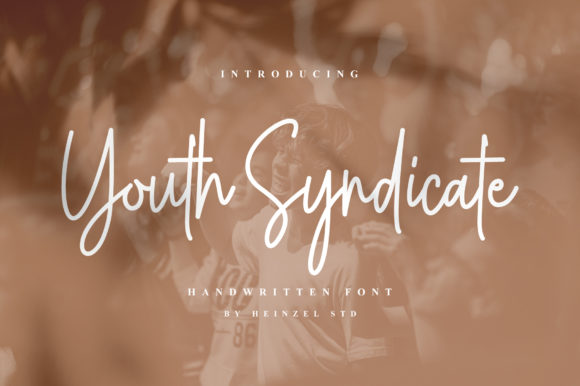
Journey into the world of storytelling and visual delight with Youth Syndicate Font, the ultimate font for digital comics. This captivating script font, crafted with meticulous attention to detail by Heinzel Std., is not just a font; it's a gateway to unleash your creativity and bring your stories to life.
Dive into the realm of imagination and let your words dance across the screen with Youth Syndicate's elegant yet asymmetrical touch. Witness the magic unfold as your digital comics transform into mesmerizing masterpieces that capture the hearts of readers.
Feel the exhilaration as your characters leap off the page, their emotions palpable, their expressions vivid, all thanks to the enchanting aura of Youth Syndicate. Experience the joy of creating worlds that resonate with your audience, leaving them captivated and eager for more.
With Youth Syndicate, the possibilities are endless. Design logos that exude personality, create social media graphics that spark engagement, or craft website designs that leave a lasting impression. Its timeless style seamlessly adapts to any project, ensuring your designs stand out and shine.